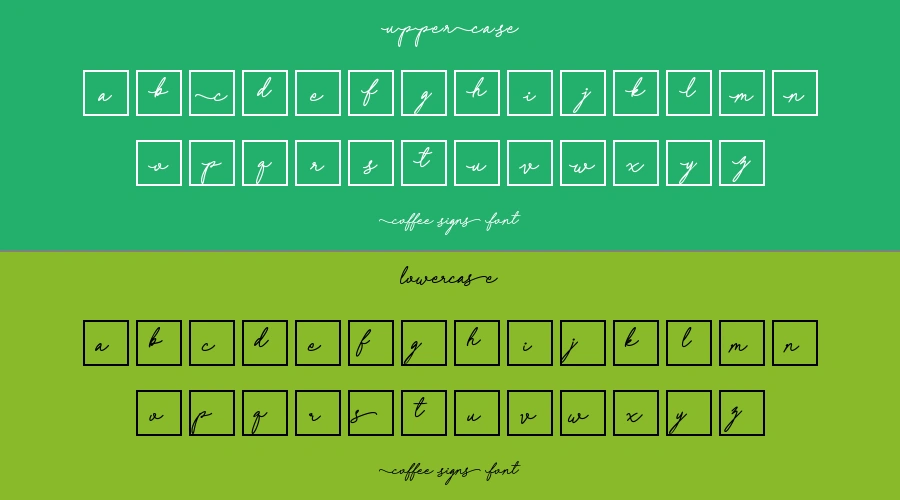
About Coffee Signs Font
Designed with precision, Coffee Signs Font merges original character with design consistency in every character. This versatility makes it particularly effective for advertising headers, where reliability and aesthetic excellence directly impact communication quality. Each letterform demonstrates meticulous craftsmanship.
Technical excellence shines through elements like balanced proportions and tabular figures, enhancing typographic versatility. In featured quotes settings, Coffee Signs Font proves its worth through superior footnote clarity. The thoughtful execution of serif length and brand personality ensures professional results.
Coffee Signs Font |